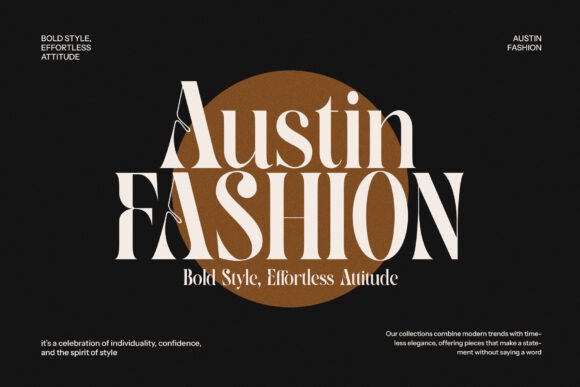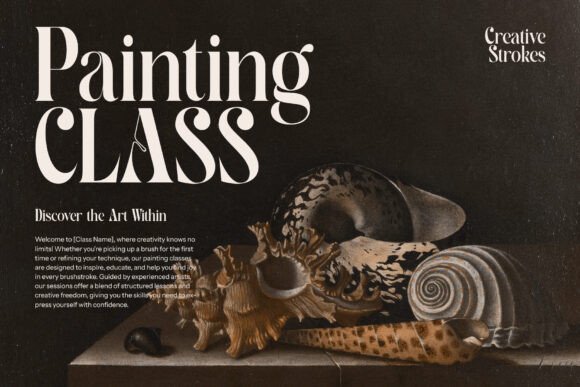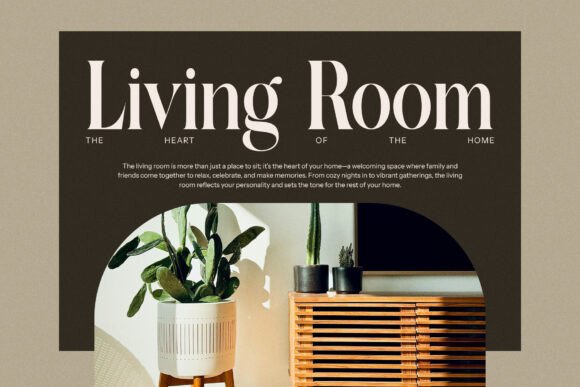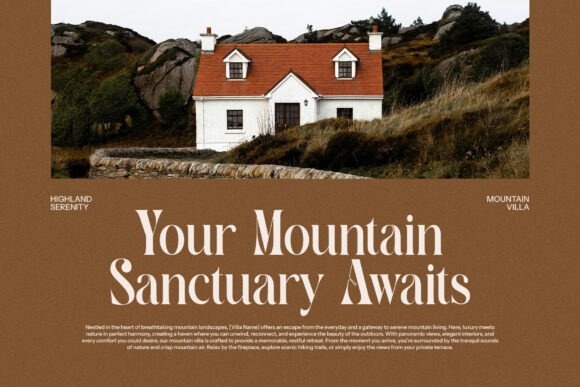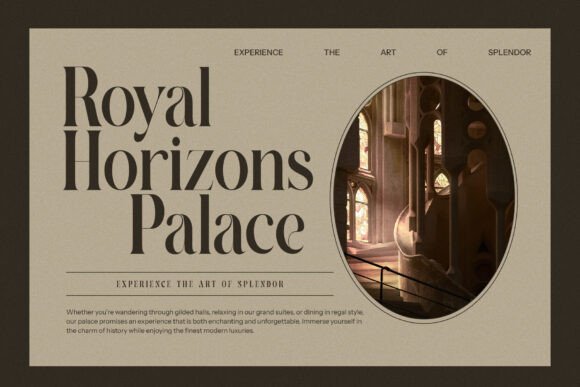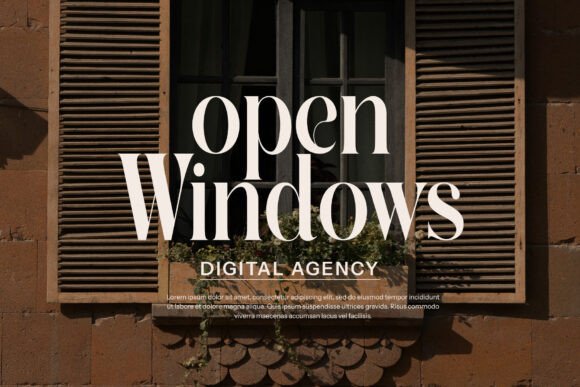
Clegky Elegant Display Serif Font – A Perfect Blend of Modern Sophistication and Vintage Elegance
Introducing Clegky Elegant Display Serif Font, a refined and stylish typeface that brings together modern design sensibilities and vintage charm. With its distinctive serifs, graceful curves, and sophisticated proportions, Clegky is the ideal choice for any project that demands a touch of class, while still maintaining a contemporary edge.
Unparalleled Elegance and Versatility
Whether you’re creating a luxury brand, designing a memorable logo, or developing premium product packaging, Clegky offers the perfect balance of elegance and readability. Its timeless, yet modern, aesthetic makes it an exceptional font for branding, websites, magazines, and advertisements. The font’s unique character makes it especially well-suited for boutiques, high-end food brands, and fashion labels, ensuring your design stands out with style and sophistication.
The Beauty of Clegky
The beauty of Clegky lies in its ability to evoke a sense of refinement and poise, while still being approachable and modern. Its distinctive serifs add a touch of classic elegance, while its clean lines and sophisticated proportions ensure that it remains highly legible, even at smaller sizes. This makes Clegky an excellent choice for a wide range of applications, from headline titles and logotypes to body text and captions.
Key Features of Clegky Font
- Distinctive Serifs: Clegky features elegant, refined serifs that add a touch of classic sophistication to any design.
- Graceful Curves: The font’s smooth, flowing curves create a sense of elegance and refinement.
- Sophisticated Proportions: Clegky’s carefully crafted proportions ensure that it remains highly legible, even at smaller sizes.
- Timeless Aesthetic: The font’s timeless, yet modern, design makes it an excellent choice for a wide range of applications.
Why Choose Clegky Font?
There are many reasons why Clegky stands out as a top choice for designers and crafters. Here are just a few:
- Unique Character: Clegky’s distinctive character makes it especially well-suited for boutiques, high-end food brands, and fashion labels.
- Elegance and Readability: The font offers the perfect balance of elegance and readability, making it an excellent choice for a wide range of applications.
- Versatility: Clegky is highly versatile, and can be used for everything from headline titles and logotypes to body text and captions.
- Modern Sophistication: The font’s modern design sensibilities ensure that it remains fresh and contemporary.
Design Applications for Clegky Font
Clegky is an exceptional font that can be used in a wide range of design applications, including:
- Branding: Create a lasting impression with Clegky’s elegant, refined design.
- Websites: Add a touch of sophistication to your website with Clegky’s clean lines and classic elegance.
- Magazines: Use Clegky to create stunning headlines, titles, and captions that demand attention.
- Advertisements: Stand out from the crowd with Clegky’s unique character and modern sophistication.
- Logos: Create a memorable logo that exudes elegance and refinement with Clegky.
In conclusion, Clegky Elegant Display Serif Font is a refined and stylish typeface that brings together modern design sensibilities and vintage charm. With its distinctive serifs, graceful curves, and sophisticated proportions, Clegky is the ideal choice for any project that demands a touch of class, while still maintaining a contemporary edge. Whether you’re a designer or crafter, Clegky is an exceptional font that is sure to elevate your design to new heights.